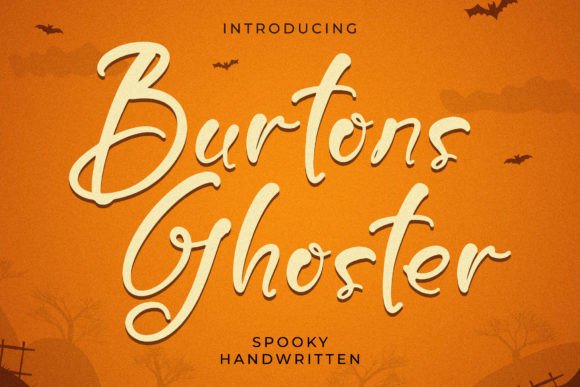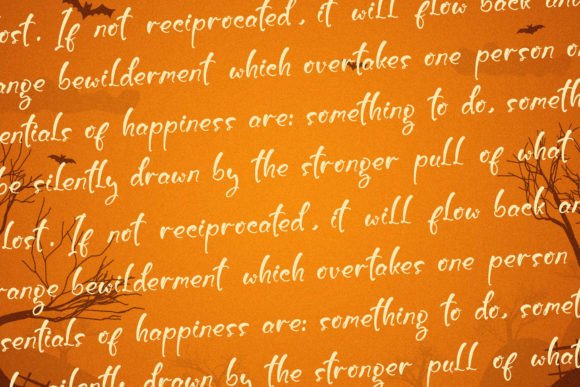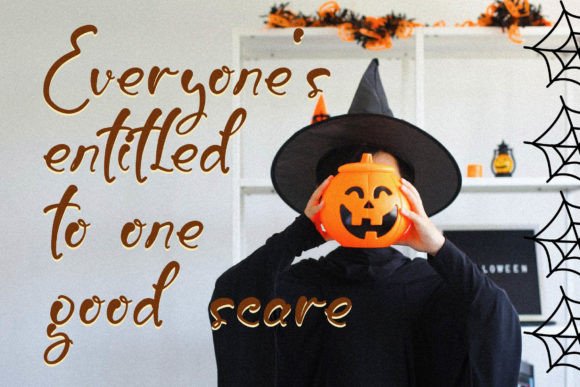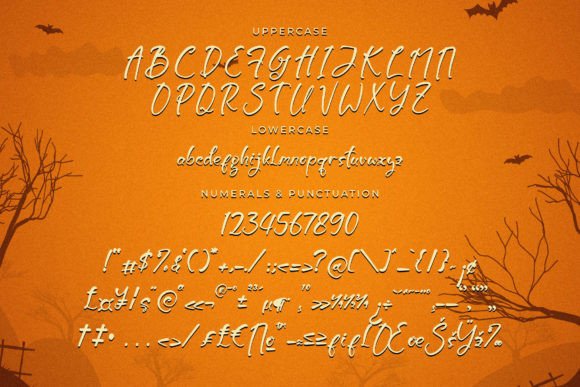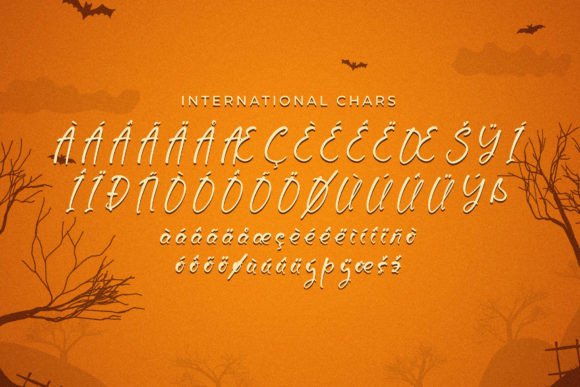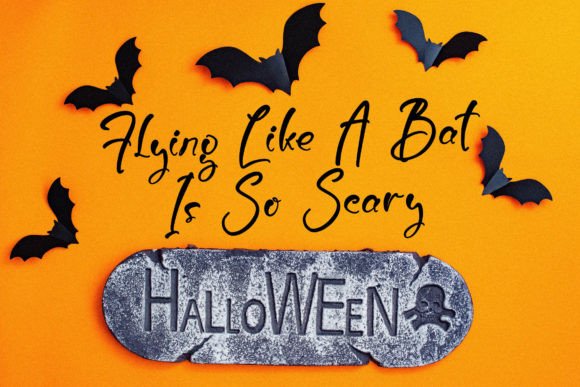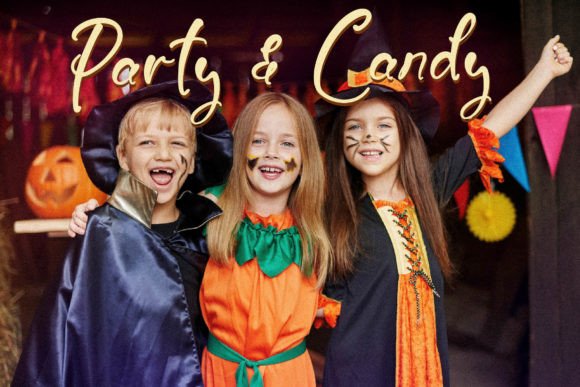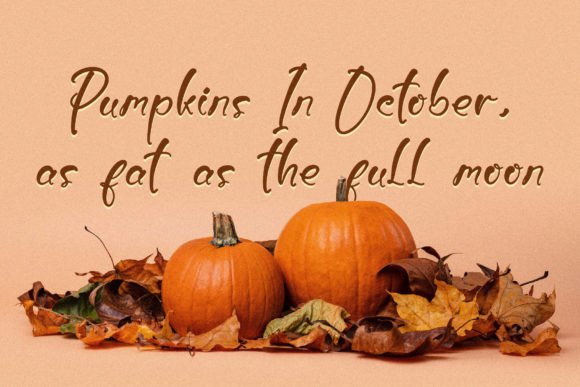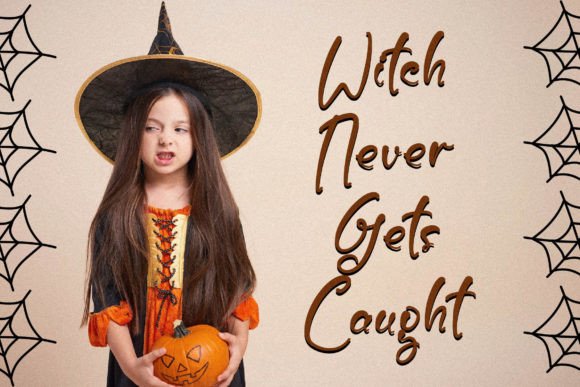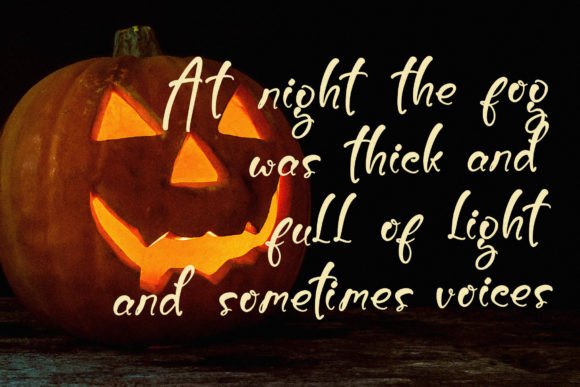
Burtons Ghoster Font
Burtons Ghoster Font Download – Spooky Handwritten Script
The Burtons Ghoster Font download is a spooky handwritten typeface designed to bring mystery and creativity to your projects. With its haunting curves and elegant flow, this font delivers a chilling yet stylish vibe that works across seasonal and everyday designs. Whether you’re creating Halloween graphics, branding, or personal crafts, Burtons Ghoster adds a distinctive look that sets your work apart.
A Spooky and Stylish Handwritten Design
The Burtons Ghoster Font download blends handwritten authenticity with a spooky twist. Each letter is drawn with natural irregularities, giving your designs a hand-crafted and slightly eerie appeal. This makes it perfect for projects that require both personality and atmosphere.
Perfect for Halloween and Themed Projects
Halloween designs come to life with the Burtons Ghoster Font download. It is ideal for party invitations, spooky greeting cards, trick-or-treat bags, posters, or themed t-shirts. Its dramatic and playful strokes capture the spirit of October celebrations while keeping your text clear and attractive.
Versatile Across Creative Applications
Beyond spooky events, the Burtons Ghoster Font download is versatile enough for logos, product packaging, mugs, book covers, name cards, labels, and social media graphics. Its adaptability ensures that it works just as well in casual DIY projects as it does in professional branding.
Readability with Haunted Charm
Some handwritten fonts lean too heavily on style, but the Burtons Ghoster Font download maintains readability. Its balance of spooky flair and clear strokes ensures your designs are eye-catching and easy to understand. Whether used in large titles or smaller text, it remains professional yet fun.
Why Choose Burtons Ghoster Font?
There are many Halloween-themed fonts, but the Burtons GhosterFont download stands out with its stylish handwritten flow, haunted personality, and wide usability. It is playful without being over-the-top, spooky while remaining elegant—a rare combination in themed typefaces.
Add Haunted Style to Your Designs
Typography sets the emotional tone of your work, and the Burtons GhosterFont download helps you add a spooky yet elegant atmosphere. From seasonal posters to professional branding, this font ensures your designs leave a memorable impression.